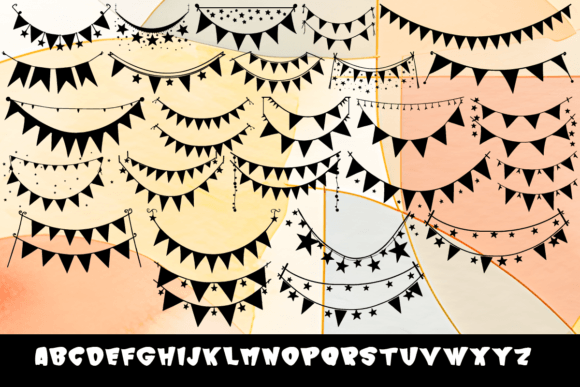
As you sit in front of your computer, staring at a blank canvas, you can’t help but feel a sense of excitement and possibility. The blank page is like a clean slate, waiting for your creativity to bring it to life. But sometimes, that blank space can be daunting. That’s where the perfect font comes in – one that can add a touch of whimsy, playfulness, and personality to your design.
Enter the Bunting Font, a delightful collection of 26 unique bunting designs, each corresponding to a letter from A to Z. This charming font set is designed to add a festive flair to your creative projects, making it a valuable asset for designers looking to elevate their work. With both OTF and TTF file formats available, you can rest assured that your designs will be compatible with various design software, making it a must-have for any creative professional.
Bunting Font Key Features
- Unique Characteristics: Bunting Font features a unique, hand-drawn design with intricate details and flourishes, giving it a distinctive and elegant look.
- Professional and Versatile: Bunting Font is designed to be highly legible and versatile, making it suitable for use in a wide range of applications, including logos, branding, packaging, and editorial design.
Bunting Font Review
Overall, I think Bunting Font is a fun and playful typeface. ✨ It’s perfect for adding a touch of whimsy to any design project. I love how it’s inspired by vintage circus signs and adds a sense of nostalgia to any design.
- Its unique letterforms and irregular shapes create a visually interesting design.
- It’s great for adding a pop of color and personality to headings and titles.
- It’s highly customizable, so you can easily adjust the spacing and size to fit your design needs.
- It may not be suitable for body text, as it can be difficult to read in smaller sizes.
- It may not be the best choice for formal or professional designs, as it can come across as too playful.
- It may require some adjustment to the kerning and spacing to get the best results.
Overall, I think Bunting Font is a great choice for designers who want to add some personality and whimsy to their designs. Just be aware of its limitations and use it in contexts where it will shine.
The Bunting Font is a playful, whimsical font that’s perfect for:
- Creating custom invitations and party decorations.
- Designing children’s books and educational materials.
- Adding a touch of personality to social media graphics and blog posts.
To get the most out of the Bunting Font, experiment with different font sizes, colors, and combinations with other fonts.
Alternatives to Bunting Font
Lato is a modern sans-serif font that offers a clean and elegant look. It is ideal for use in digital design, particularly for headings and titles. Lato has a more subtle and understated feel compared to Bunting Font, which makes it suitable for a wider range of applications.
Comparison to Bunting Font: While both fonts are sans-serif, Lato is more minimalist and has a smaller x-height, giving it a more delicate appearance. Bunting Font, on the other hand, has a more playful and decorative feel.
Alegreya is a serif font that is highly legible and elegant. It is suitable for use in print and digital design, particularly for body text and captions. Alegreya has a more sophisticated and refined feel compared to Bunting Font, which makes it ideal for use in high-end publications and websites.